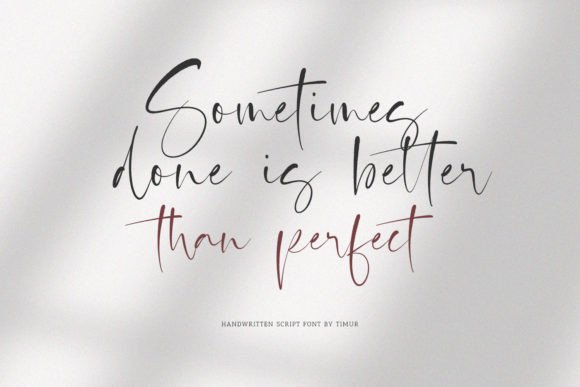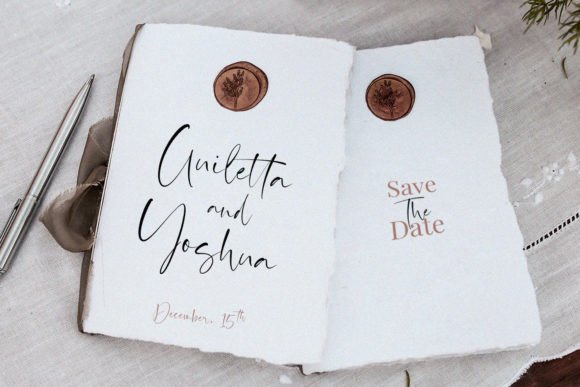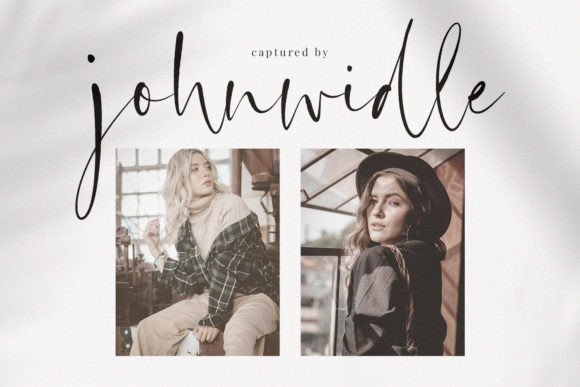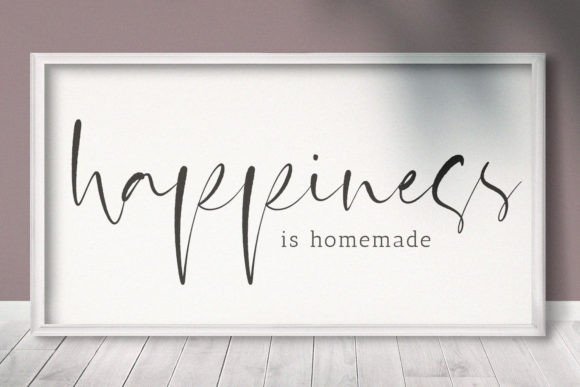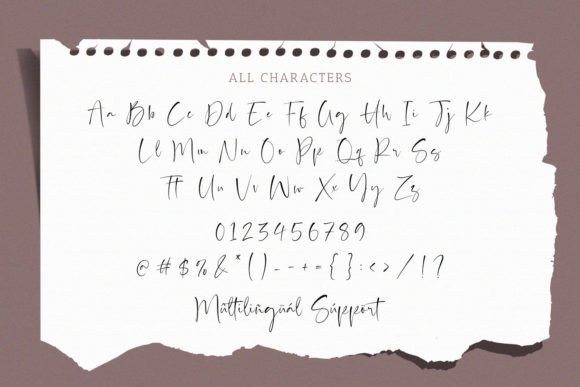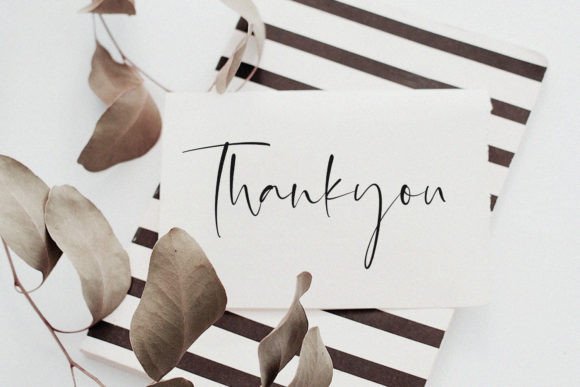
Introduction to Barriton Paradise Font
As a designer, have you ever found yourself staring at a blank canvas, waiting for inspiration to strike? The spark of creativity can be fleeting, but when it hits, it’s like a breath of fresh air. For me, it was the moment I discovered the Barriton Paradise Font – a delicate and elegant handwritten font that stole my heart. Its unique blend of style and sophistication made me want to create something spectacular.
What sets Barriton Paradise Font apart from other design resources is its versatility. Whether you’re working on a creative project or need a font for a client, this font is a valuable asset. With its high-quality design and transparent background, it’s perfect for any design project. And the best part? You can download it for free, making it an accessible design resource for designers of all levels.
Key Features of Barriton Paradise Font
- Unique, elegant design perfect for creative projects and design resources
- High-quality font with a transparent background, ideal for various design applications
- Includes 6 styles, each with a distinct flair to suit different design needs
- Perfect for use in graphic design, digital art, and other creative endeavors
Honest Review: Barriton Paradise Font
I recently stumbled upon the Barriton Paradise Font and I must say it’s been a great addition to my design resources. ✨ As a designer, I’m always on the lookout for high-quality fonts that can elevate my creative projects. This font definitely delivers.
The font is free to download and features a transparent background, making it easy to work with. I love the playful and modern feel it brings to my designs. The font is also highly customizable, allowing me to adjust the size and color to suit my needs.
However, I do have a few limitations to mention: ⚠️ The font is a bit limited in terms of styles, with only a few variations available. Additionally, it may not be suitable for formal or professional projects, as it has a more casual and playful vibe.
Overall, I’m really impressed with the Barriton Paradise Font. It’s a great design resource that’s perfect for casual and creative projects. While it may have some limitations, I think it’s definitely worth checking out.
The Barriton Paradise Font is perfect for a variety of creative projects, including logos, business cards, brochures, and social media graphics. Its high quality and transparent background make it easy to use in a range of design applications.